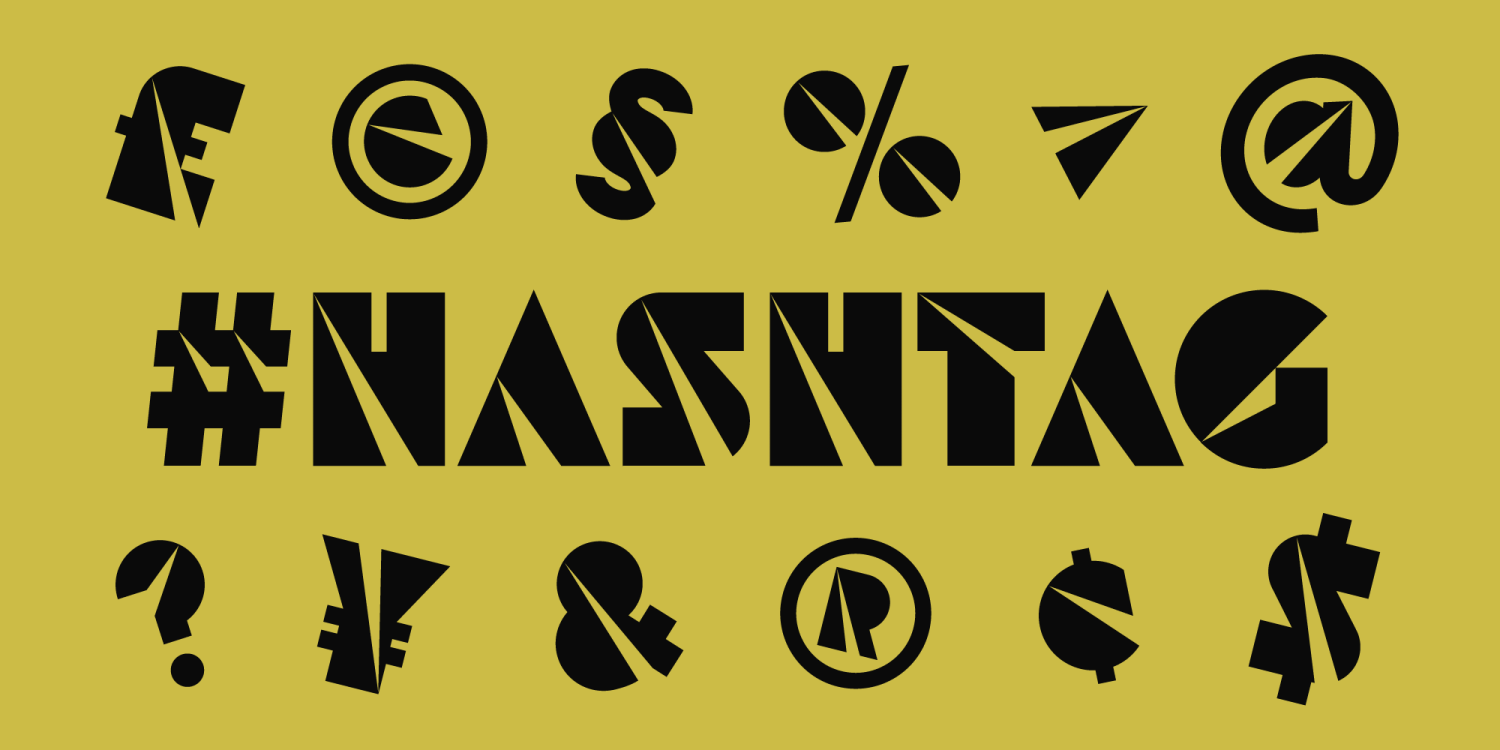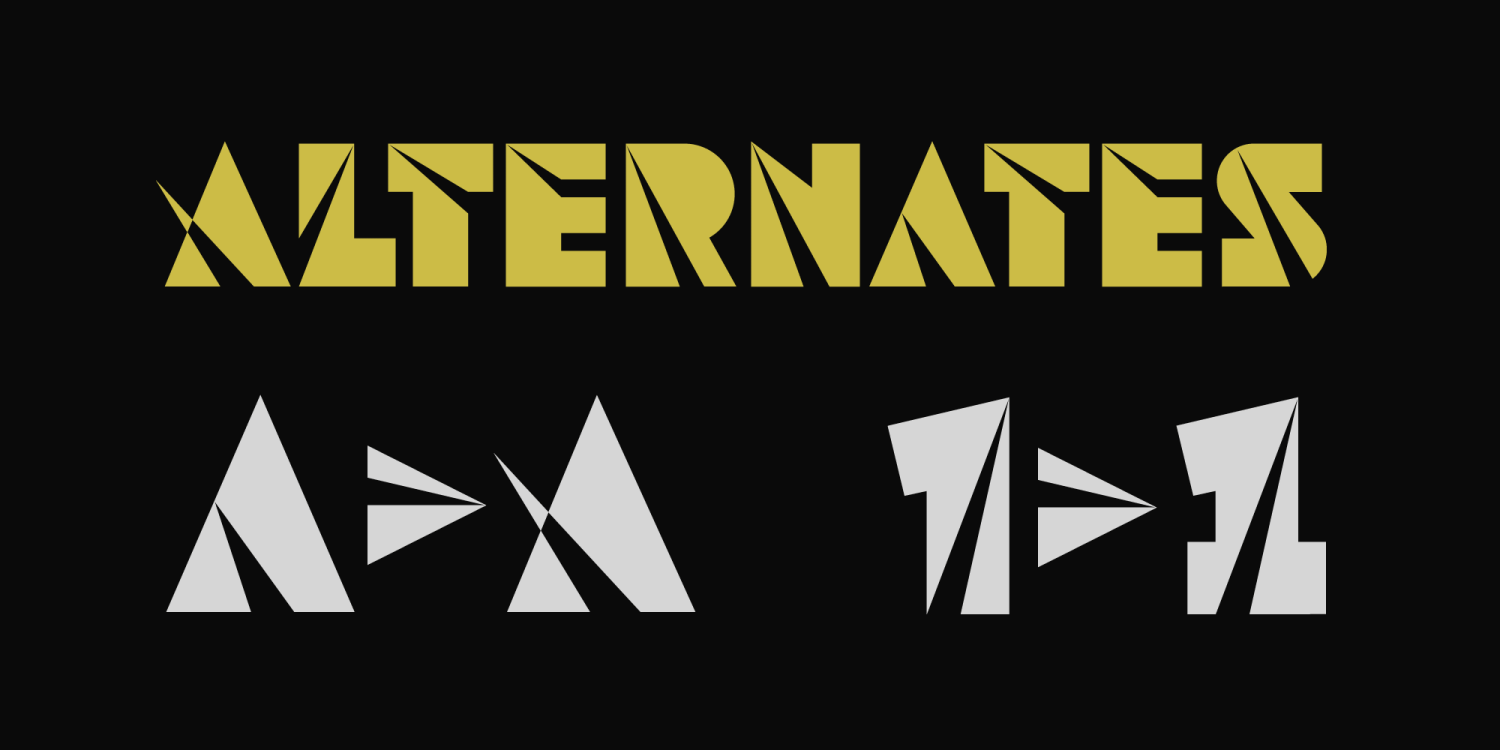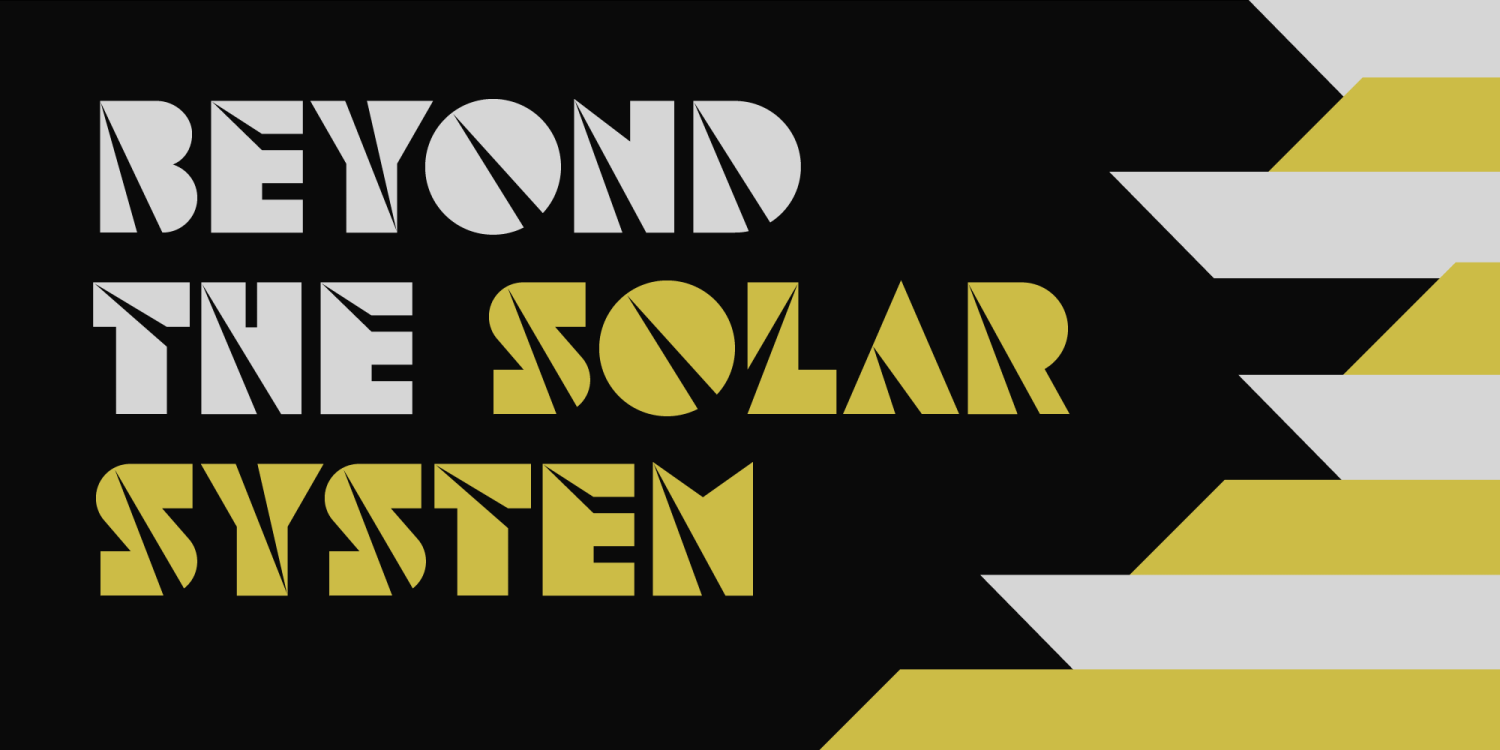
About Astroz
Astroz is a single weight display font inspired by sci-fi culture and space environments. The sharp lines mixed with circles give a wonderful futuristic aesthetic. It has been conceived for logos, headlines and posters. Multilingual support is available.…